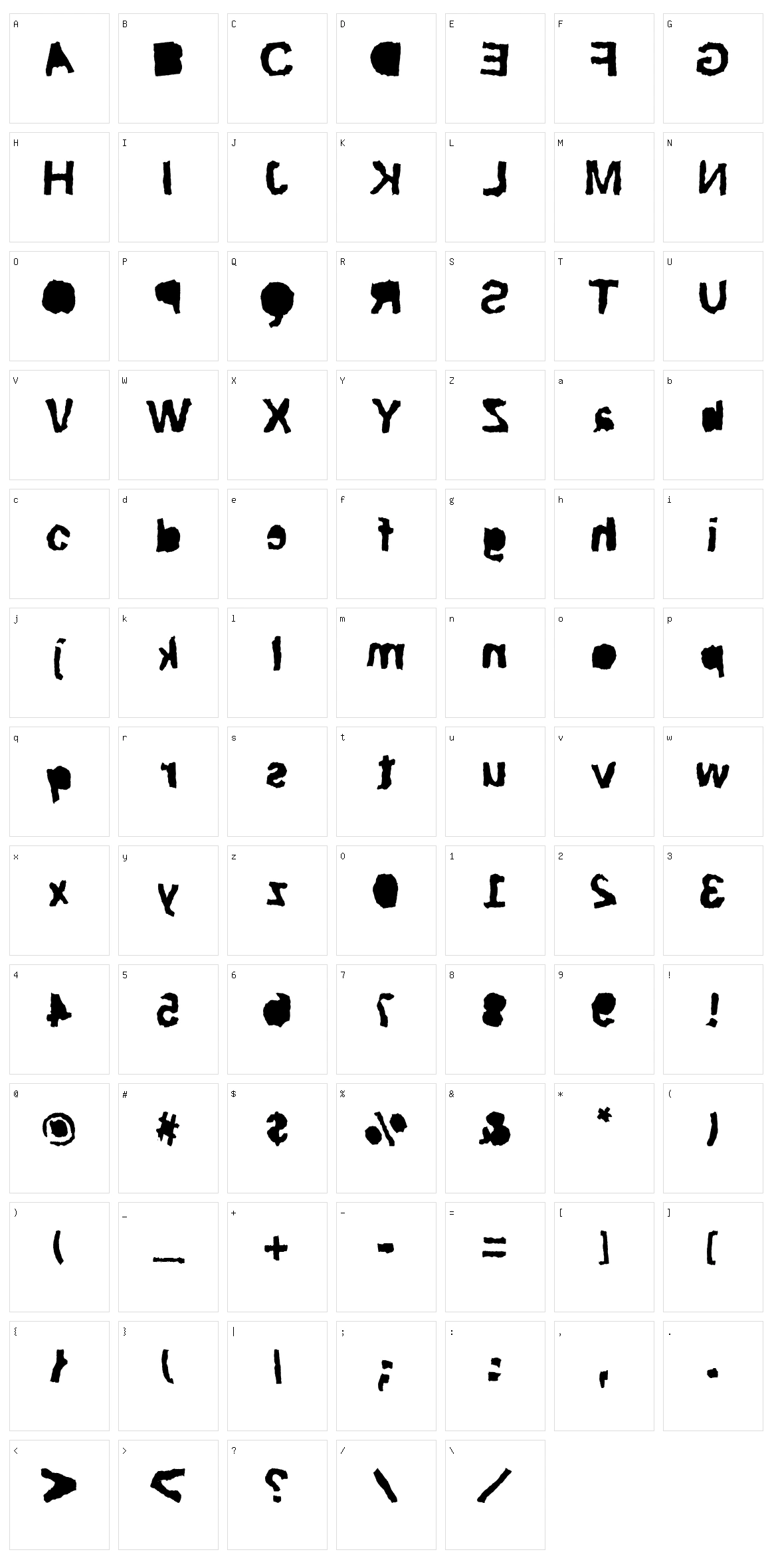
The free font Rip Trash is carefully designed by Manuel Viergutz | Typo Graphic Design, showcasing a thoughtful balance of creativity and usability and falls under the Destroy font style. When you download the ZIP file, it contains only 1728.29 KB of font files, making it lightweight and quick to download. Please review the license details below to understand permitted usage and distribution rights. If license information is not available, we recommend using this font for personal projects only or contacting the author directly for commercial usage permissions.
ripTRASH - freeware font